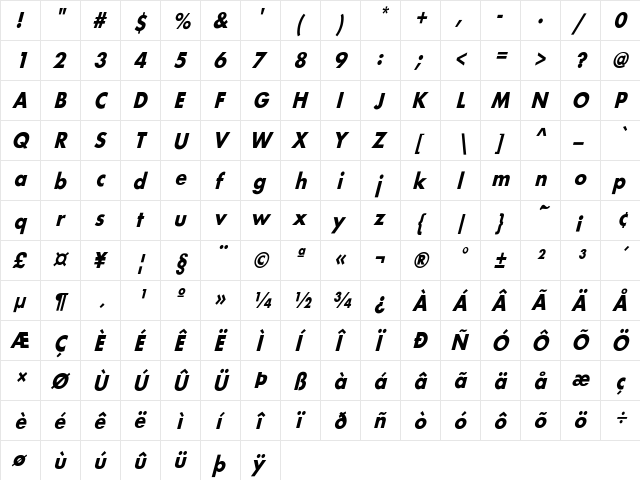
FuturaCndObl-Bold Regular
Design Context for FuturaCndObl-Bold Typeface
FuturaCndObl-Bold channels digital-age aesthetics through its sharp, structured letterforms — ideal for brands that want to signal innovation. The heavy weight commands attention and anchors typographic hierarchies.